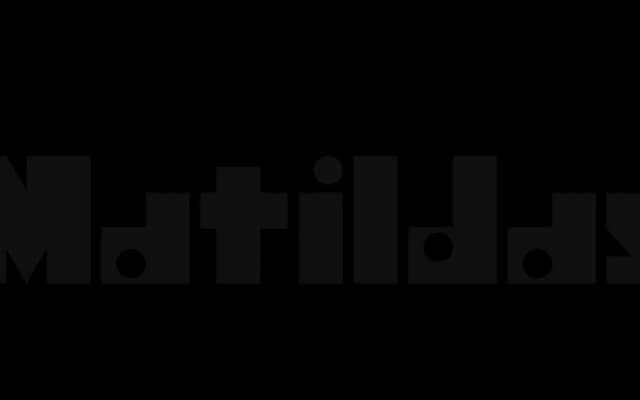
Paabo
Radim Pesko · Radim Peško
A strictly geometric sans in 13 styles, designed for headline use and adopted by FIFA, with deliberate irregularities that interrupt its otherwise Euclidean construction.
Paabo is built on geometric principles but punctuated by occasional departures from that rigidity, which the foundry describes as the flight of a non-Euclidean fly. Its 13 styles support Latin, Greek and Cyrillic with localised forms, giving it broad reach across editorial and brand applications. The typeface has been used in FIFA headline typography, grounding it firmly in large-scale sports communications.
Described as strictly geometric in construction, Paabo follows geometric sans conventions while introducing occasional irregular strokes that break from pure Euclidean form.